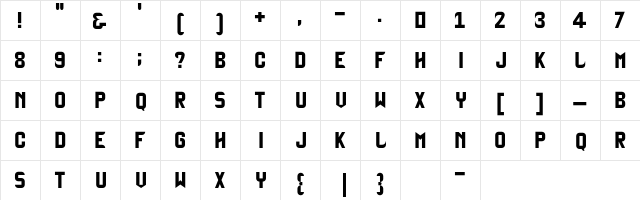
Zinbox Bold
| Foundry | Muse-Master |
| Designer | Dasagani |
Design Context for Zinbox Typeface
Zinbox offers clean, dependable letterforms without strong stylistic allegiance, making it a practical choice for designers who need flexibility. Its bold stroke weight gives it real presence on the page.